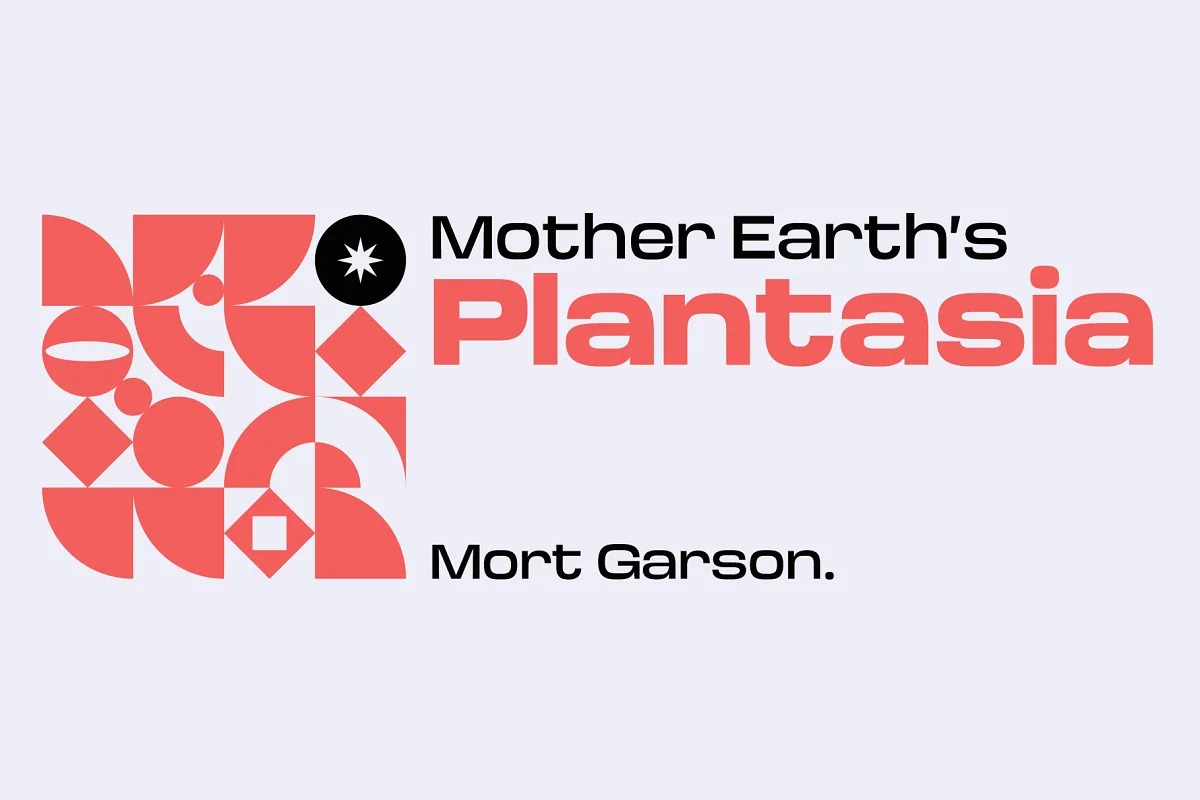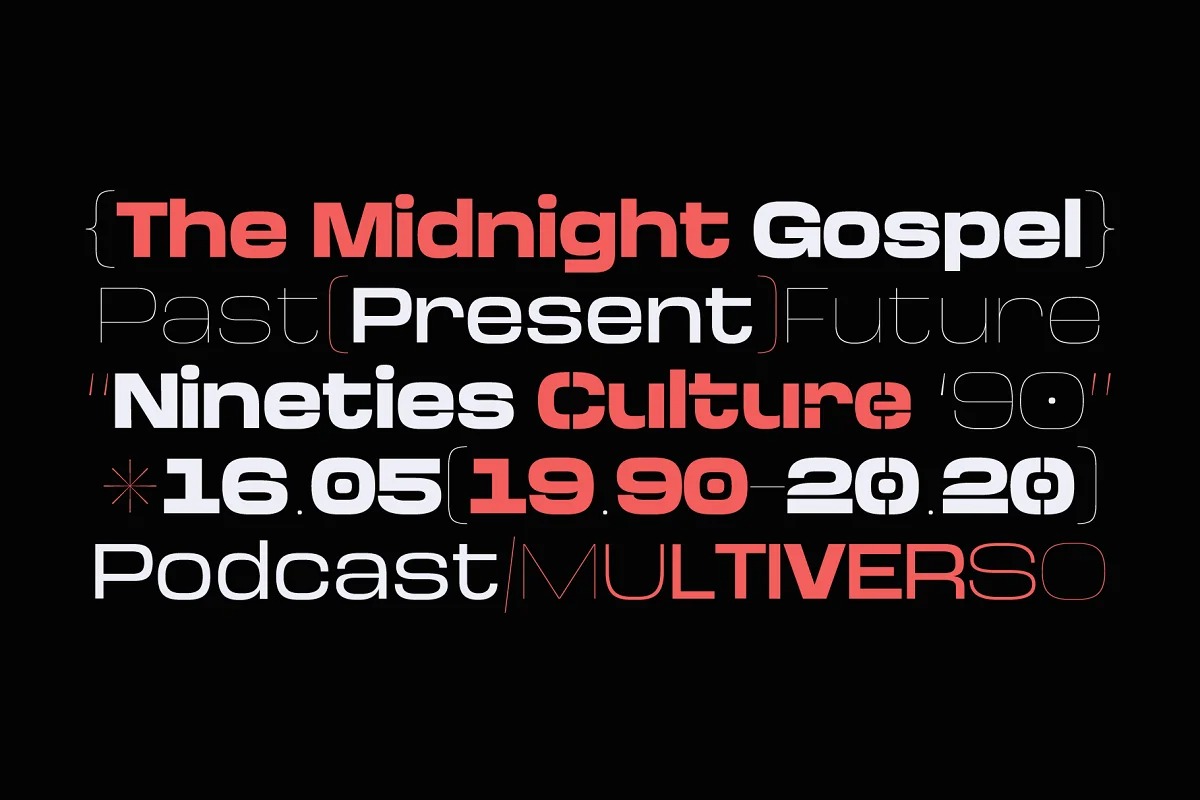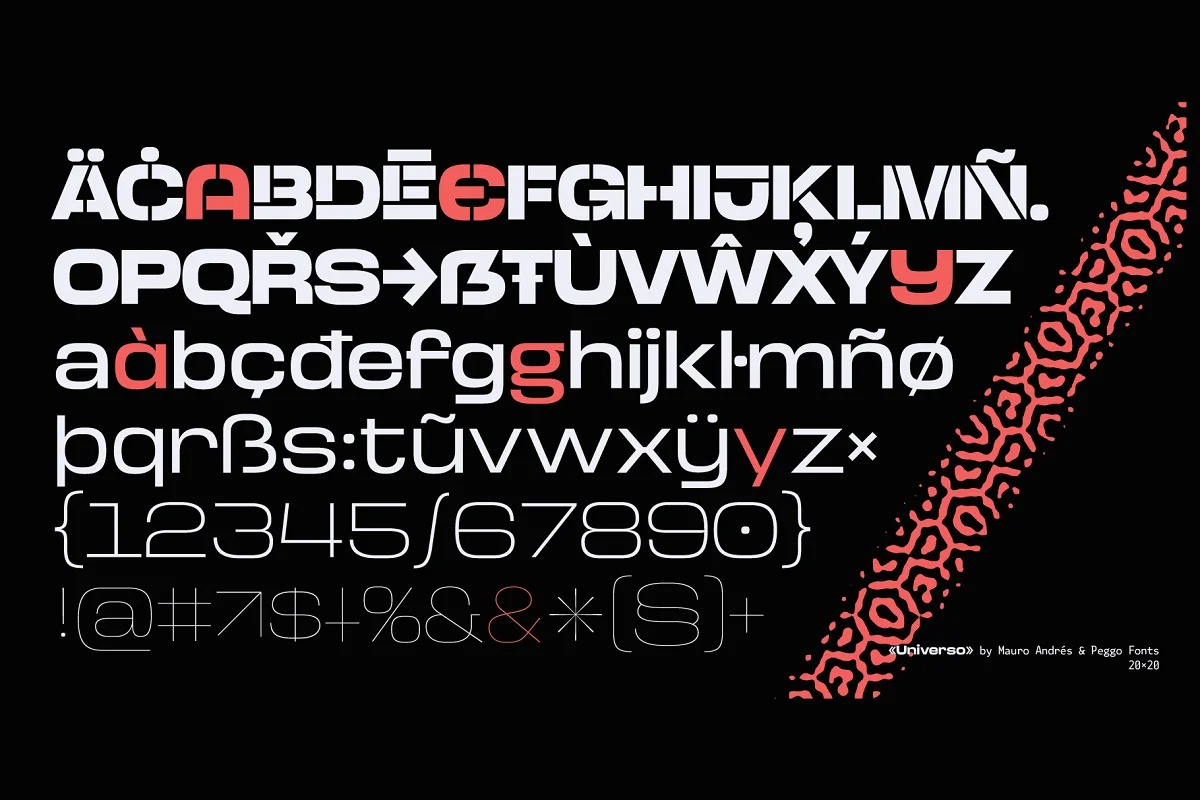
Universo Sans Serif Font
This is a distinctive modern sans serif font. It is designed to improve the readability and interactive rhythm of glyphs. Its name “Universo” comes from the quote “we have to talk about the horrible things of Universe” with the main idea of supporting and help to expose social problems.
Inspired on Retro-Futuristic fonts and poster design and old scientific publications that is becoming a new design trend nowadays, and strongly influenced by the Italian type designer Aldo Novarese’s work, developed in the 50’s.
“Universo CS” and “Universo CS Stencil” were produced between mid-September and October 2018 by Mauro Andrés under the creative direction of Victoria Rivas and those versions were publicly showed at “Impresionante” (a massive independent printing expo in Chile) with a printed specimen. That phase of the project was updated and completed in March 2019 and was lastly finished between November 2019 and April 7, 2020, developing it in six styles, under the co-production of Peggo Fonts.
“Universo” and “Universo Stencil” are both suitable for headlines and short text lines, music and concert posters, books and magazines covers, branding, logotype and graphic design. All stylistic alternates are accessible via OpenType features or character map.